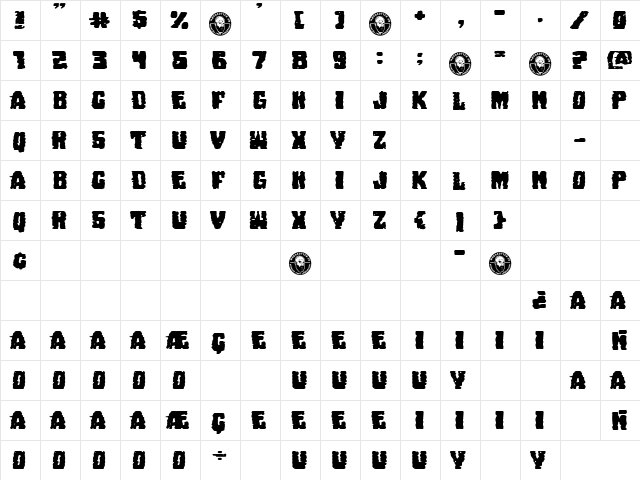
Nightmare on Raval Streets Regular
| Designer | Woodcutter Manero |
Design Context for Nightmare on Raval Streets Typeface
Nightmare on Raval Streets is a composed and adaptable typeface that performs quietly and consistently across a wide range of design contexts.